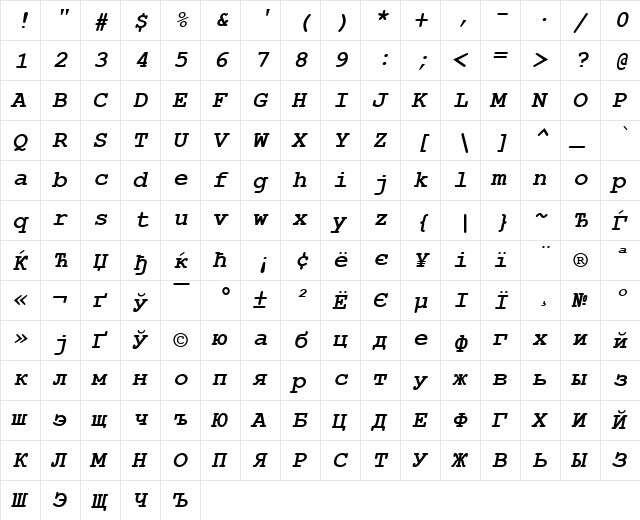
Courier New KOI8 Bold Italic Font Preview
| Designer | Howard Kettler |
Design Context for Courier New KOI8 Typeface
Courier New KOI8 uses fixed-width spacing throughout, giving it the structured, systematic character associated with coding environments and technical documentation. The dynamic lean of this cut emphasises speed and emphasis in any layout. The heavy weight commands attention and anchors typographic hierarchies.